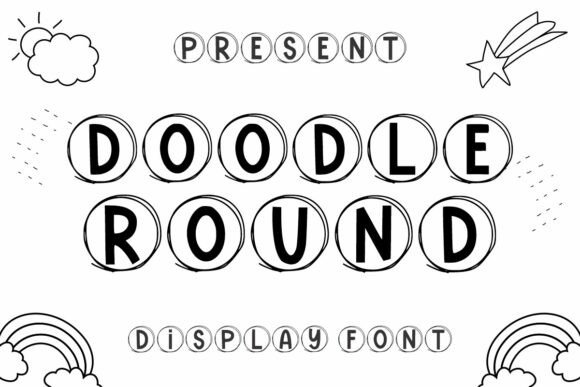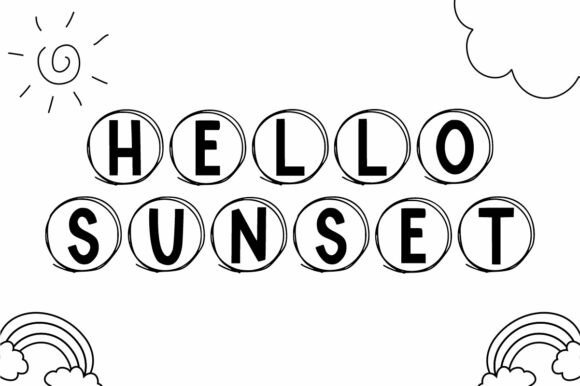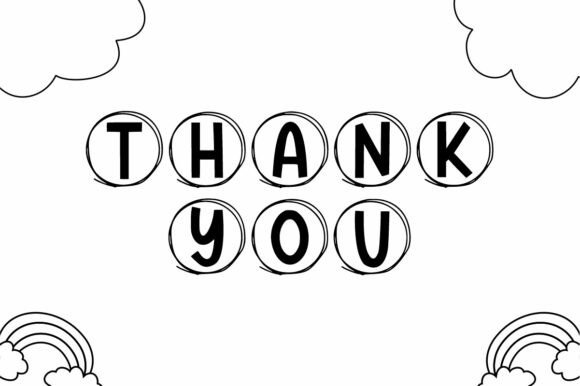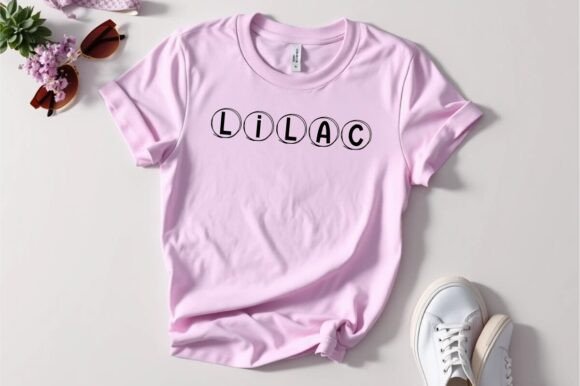
Doodle Round Font
About the Doodle Round Font
Introducing the Doodle Round Font, a beautifully crafted typeface designed to elevate your creative projects. Doodle Round is a cute and playful display font that features round-shaped letters that are perfect for adding a fun touch to any project. With its simple yet bold design, this font is sure to catch the eye and add a touch of whimsy to any design
Doodle Round excels in headlines, short titles, and playful branding projects where a friendly, approachable aesthetic is desired. It’s ideal for children’s products, invitations, or social media graphics. However, its rounded forms and relatively low x-height make it unsuitable for body text or UI elements requiring high readability.
Consider pairing Doodle Round with a clean sans-serif like Open Sans for a balanced contrast, or a classic serif such as Playfair Display for a more sophisticated feel. A simple geometric sans-serif would also provide a nice counterpoint to its organic shapes.
Its core personality is undeniably cheerful and informal, making it a strong choice for brands aiming for a lighthearted and approachable image. Avoid using it in contexts requiring seriousness or formality.
Doodle Round Font Usage Examples
Doodle Round Font Example